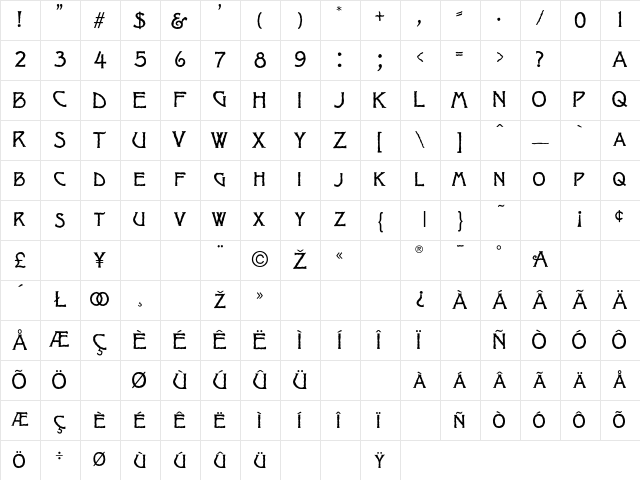
Complete Jagged Regular glyph index. Displaying only characters natively supported by Jagged Regular font.
Jagged is a composed and adaptable typeface that performs quietly and consistently across a wide range of design contexts.